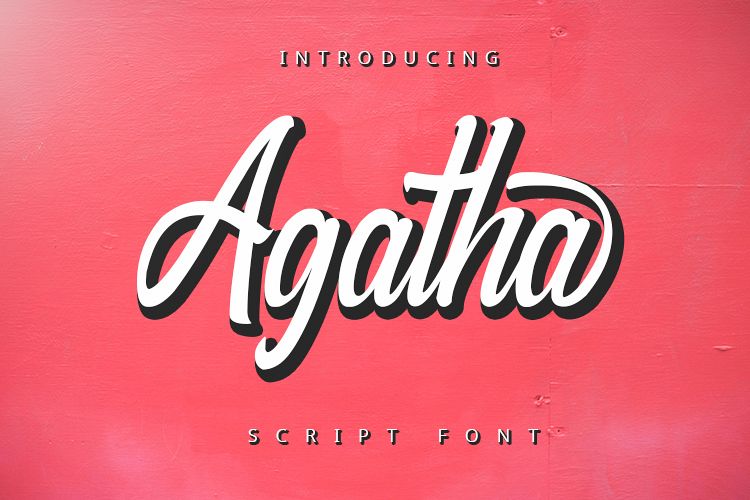
Agatha - Script Font
Agatha
Introducing my new product, name is Agatha. Agatha is script and handwritten font. This font is perfect for your all design project such as typography design, lettering design, logo type, book cover, poster, flyer, calligraphy, etc.